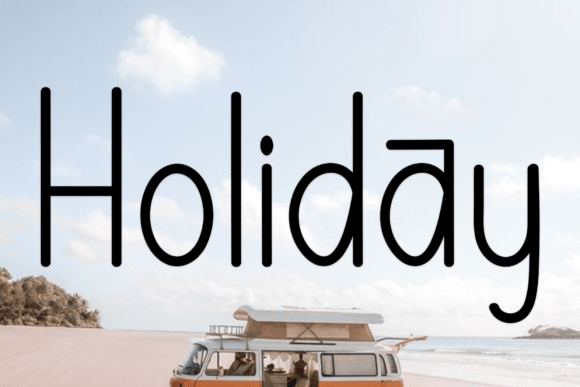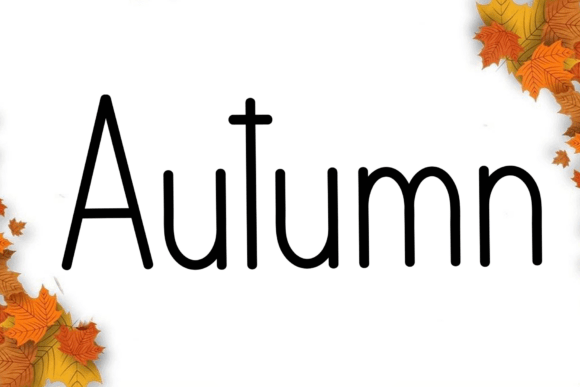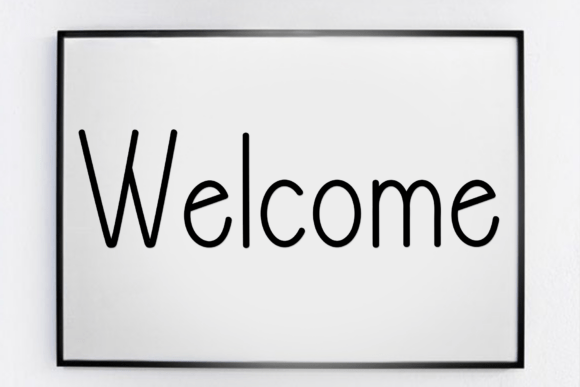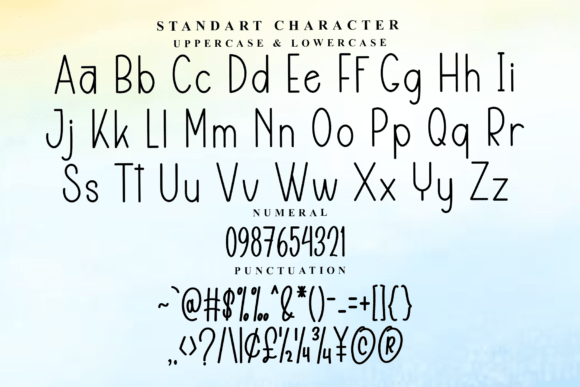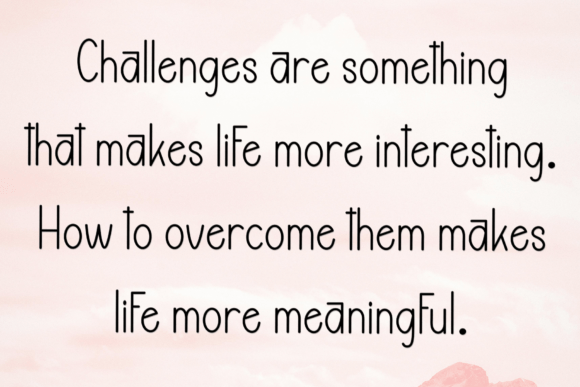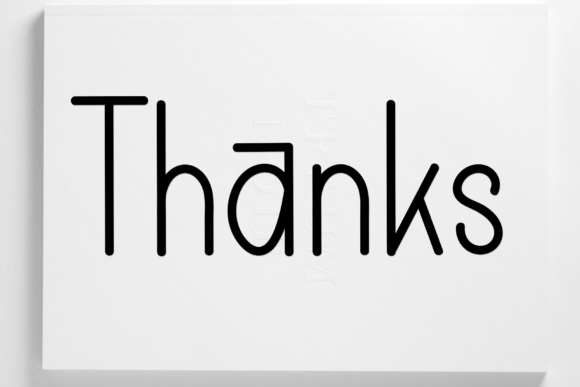
Discover the Charm of Family History Font: A Modern Sans Serif for Family-Themed Projects
Are you searching for a font that embodies warmth, connection, and modern simplicity? Look no further than the Family History Font, a clean and contemporary sans serif font designed to evoke a sense of friendliness and approachability. With its rounded edges and tall, soft forms, this font is perfect for family-themed projects, lifestyle branding, editorial layouts, and minimalist logos.
The Essence of Family History Font
Family History Font is a thoughtfully crafted typeface that strikes a delicate balance between friendly and professional. Its effortless charm makes it an ideal choice for designers and crafters seeking a font that can convey a sense of warmth and approachability. The font’s clean and contemporary design ensures that it remains versatile and adaptable, suitable for a wide range of applications.
Key Features of Family History Font
- Rounded Edges: The font’s rounded edges give it a soft and approachable feel, making it perfect for family-themed projects and lifestyle branding.
- Tall, Soft Forms: The font’s tall and soft forms evoke a sense of warmth and connection, creating a sense of modern simplicity.
- Clean and Contemporary Design: The font’s clean and contemporary design ensures that it remains versatile and adaptable, suitable for a wide range of applications.
- Effortless Charm: The font’s effortless charm makes it an ideal choice for designers and crafters seeking a font that can convey a sense of warmth and approachability.
Ideal Applications for Family History Font
Family History Font is an incredibly versatile typeface, suitable for a wide range of applications. Some of the ideal uses for this font include:
- Family-Themed Projects: The font’s warm and approachable feel makes it perfect for family-themed projects, such as family trees, genealogy websites, and family history books.
- Lifestyle Branding: The font’s clean and contemporary design makes it an excellent choice for lifestyle branding, including logos, packaging, and advertising materials.
- Editorial Layouts: The font’s readability and legibility make it suitable for editorial layouts, including magazines, newspapers, and blogs.
- Minimalist Logos: The font’s simple and elegant design makes it an excellent choice for minimalist logos, providing a clean and sophisticated look.
Why Choose Family History Font?
With so many fonts available, why choose Family History Font? Here are just a few reasons why this font stands out:
- Unique Character: Family History Font has a unique character that sets it apart from other fonts, making it an excellent choice for designers and crafters seeking a distinctive look.
- Versatility: The font’s versatility ensures that it can be used for a wide range of applications, from family-themed projects to lifestyle branding.
- Readability: The font’s readability and legibility make it easy to read, even at small sizes.
- Modern Simplicity: The font’s modern simplicity ensures that it remains timeless, avoiding the risk of becoming outdated or clichéd.
In conclusion, Family History Font is an exceptional typeface that embodies warmth, connection, and modern simplicity. Its clean and contemporary design, rounded edges, and tall, soft forms make it perfect for family-themed projects, lifestyle branding, editorial layouts, and minimalist logos. With its effortless charm and versatility, this font is an excellent choice for designers and crafters seeking a font that can convey a sense of friendliness and approachability.
Whether you’re working on a family history book, a lifestyle brand, or a minimalist logo, Family History Font is an excellent choice. Its unique character, versatility, readability, and modern simplicity make it an exceptional addition to any design project.